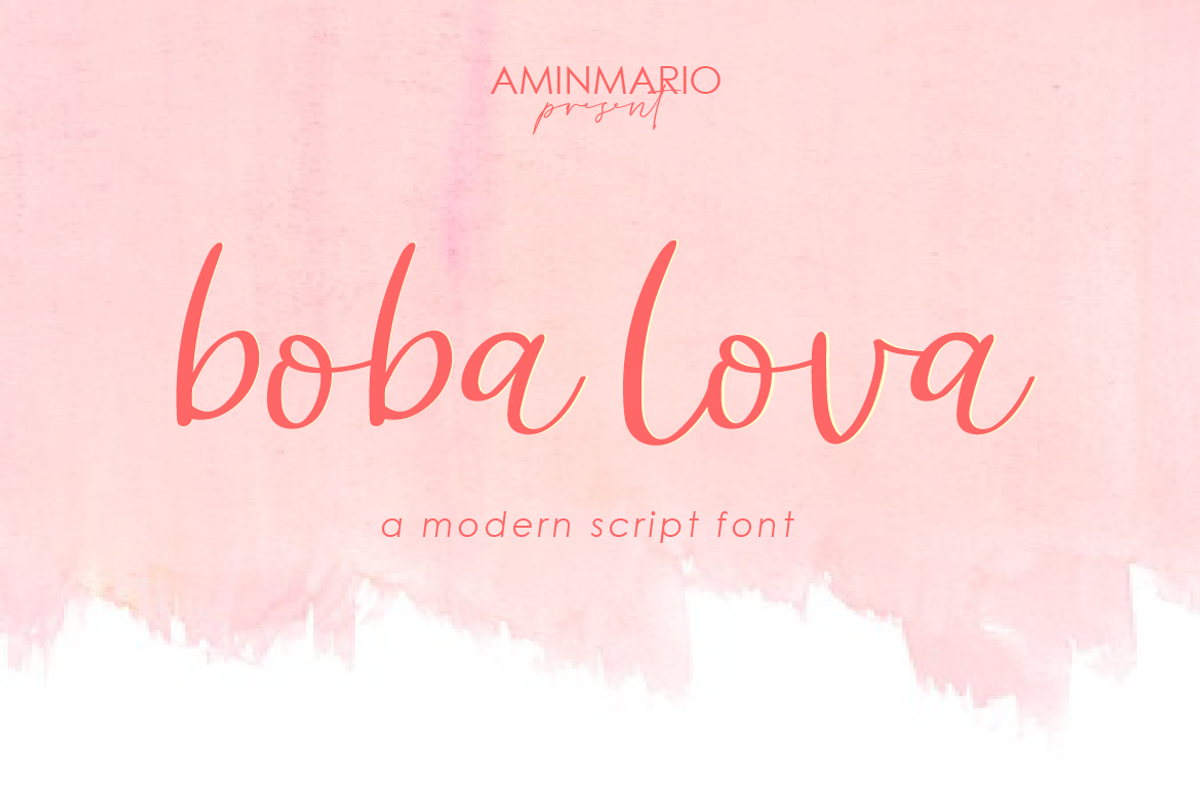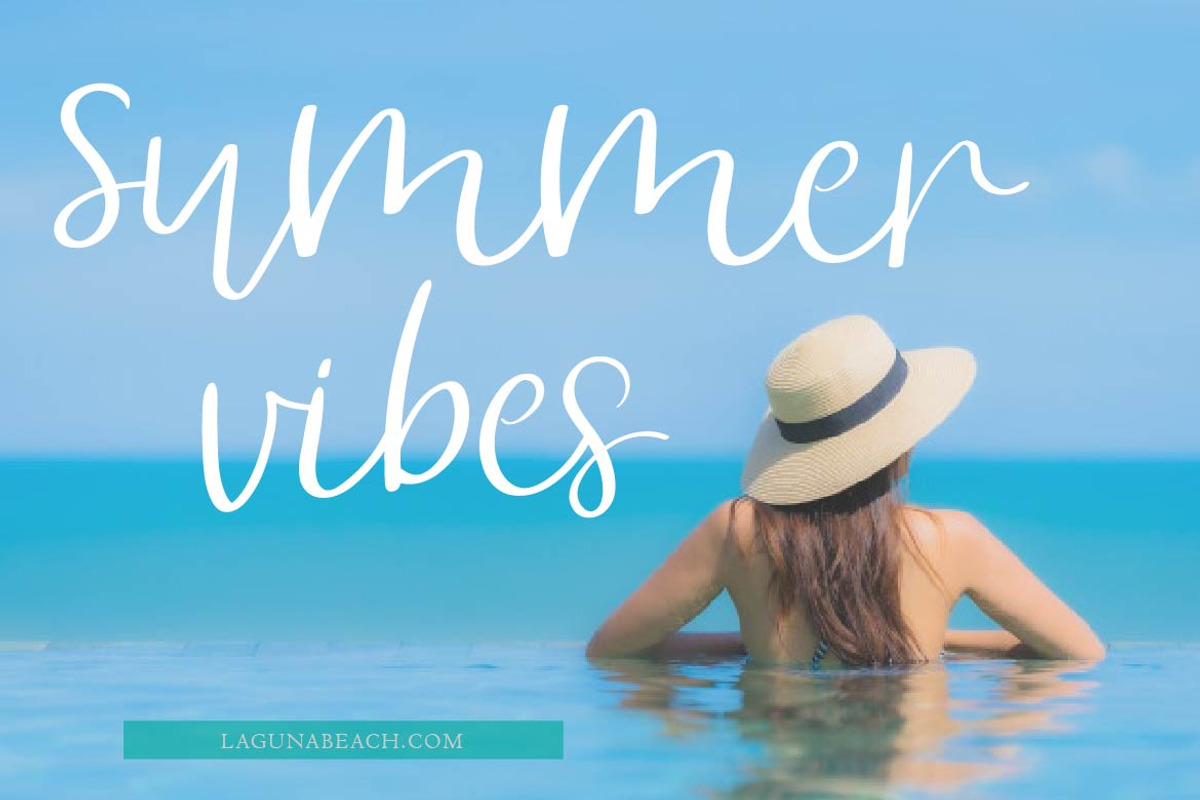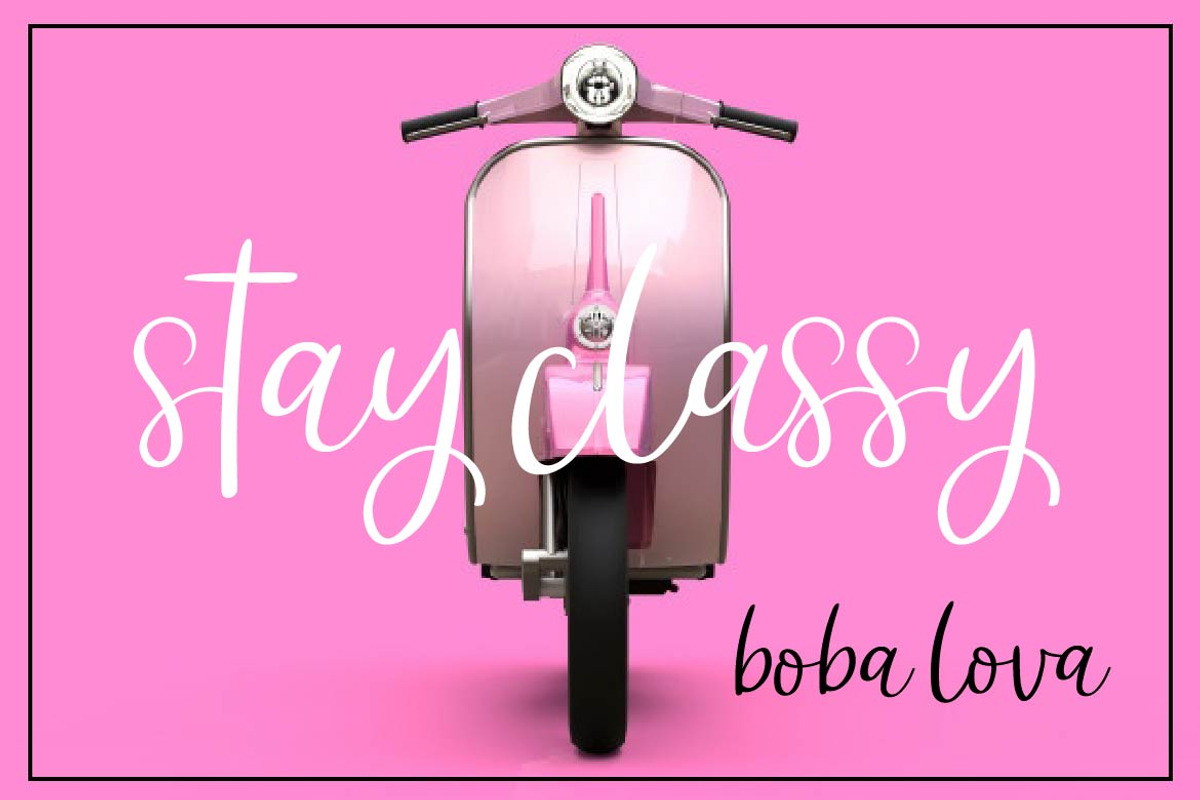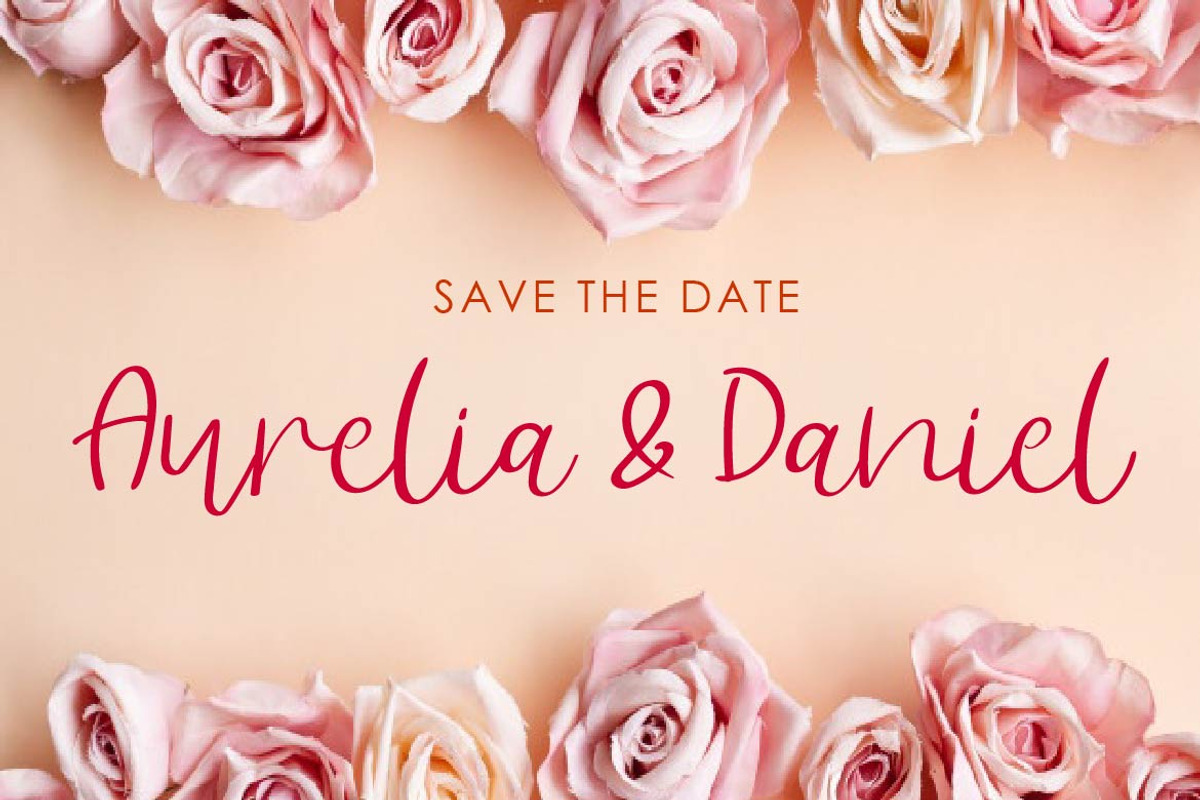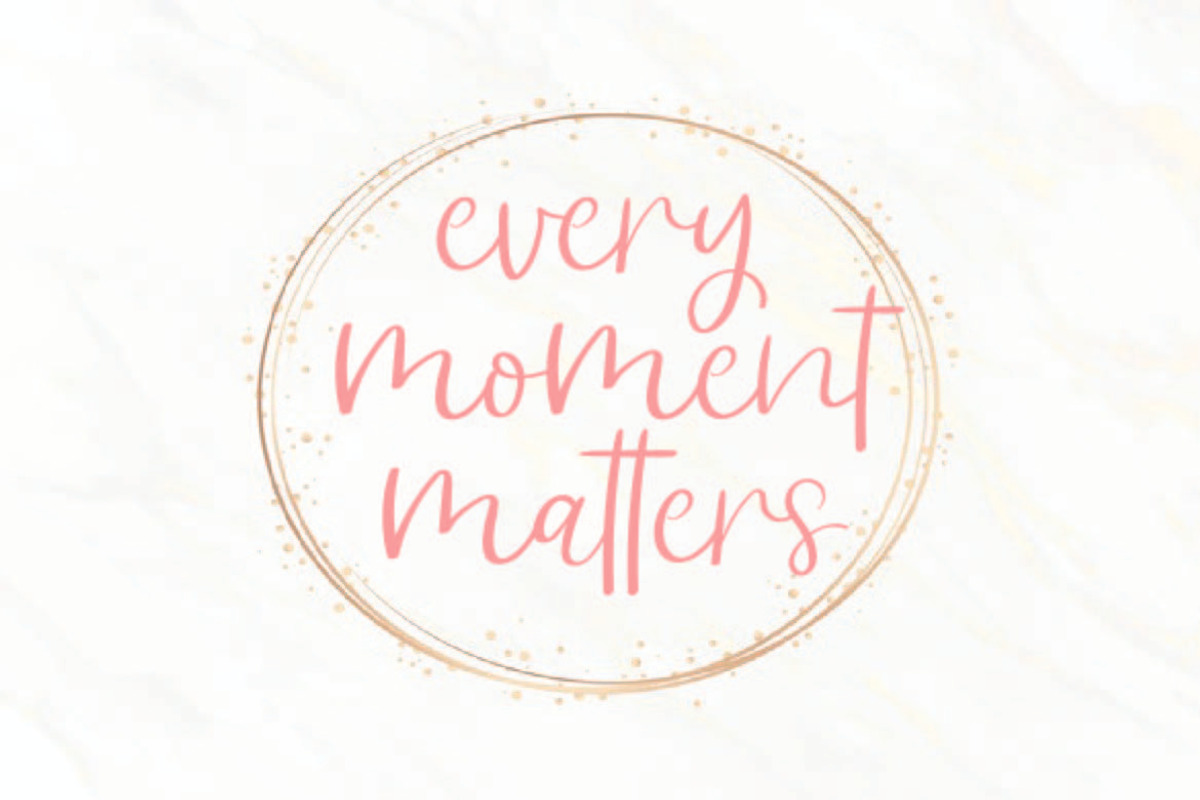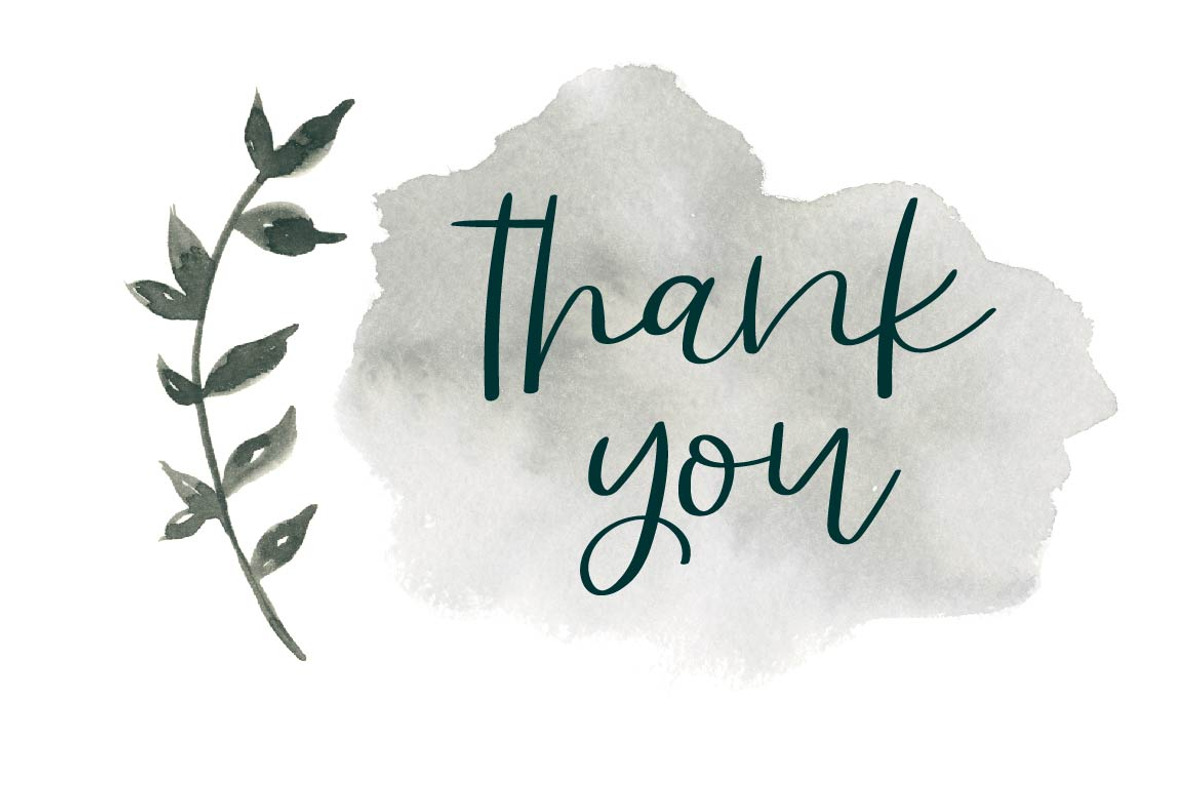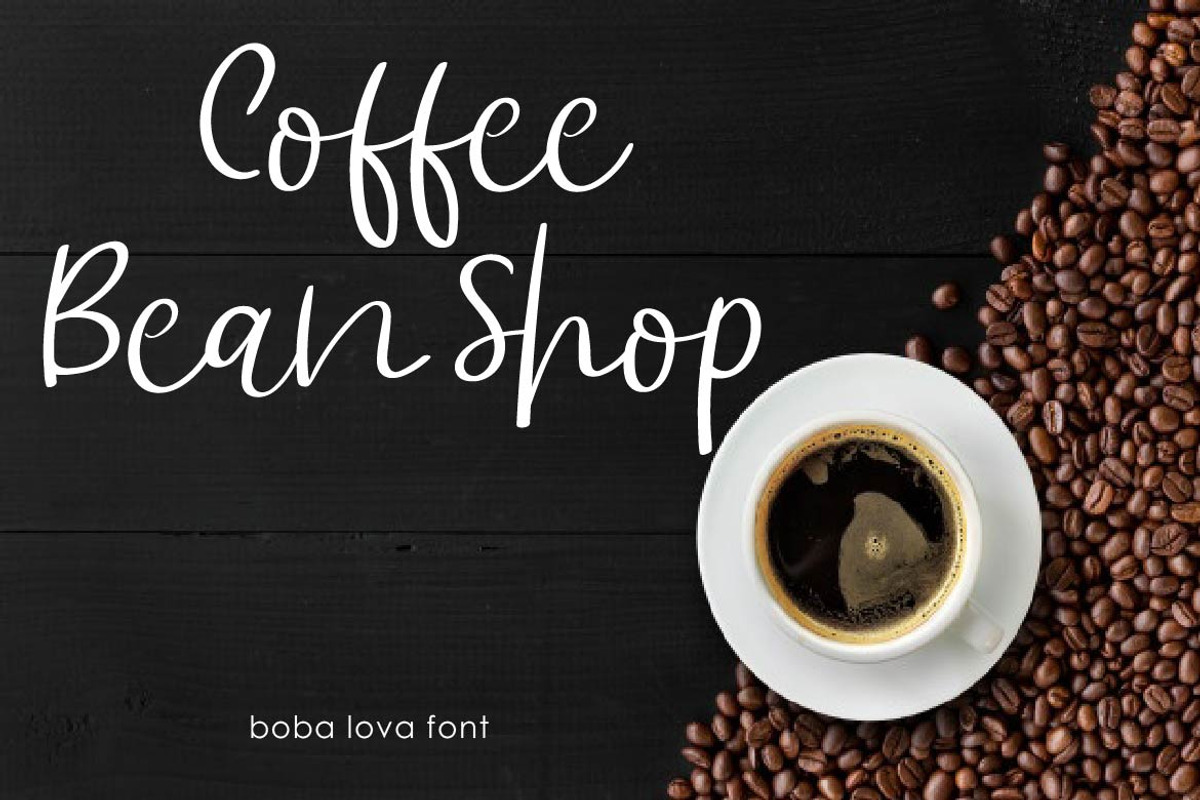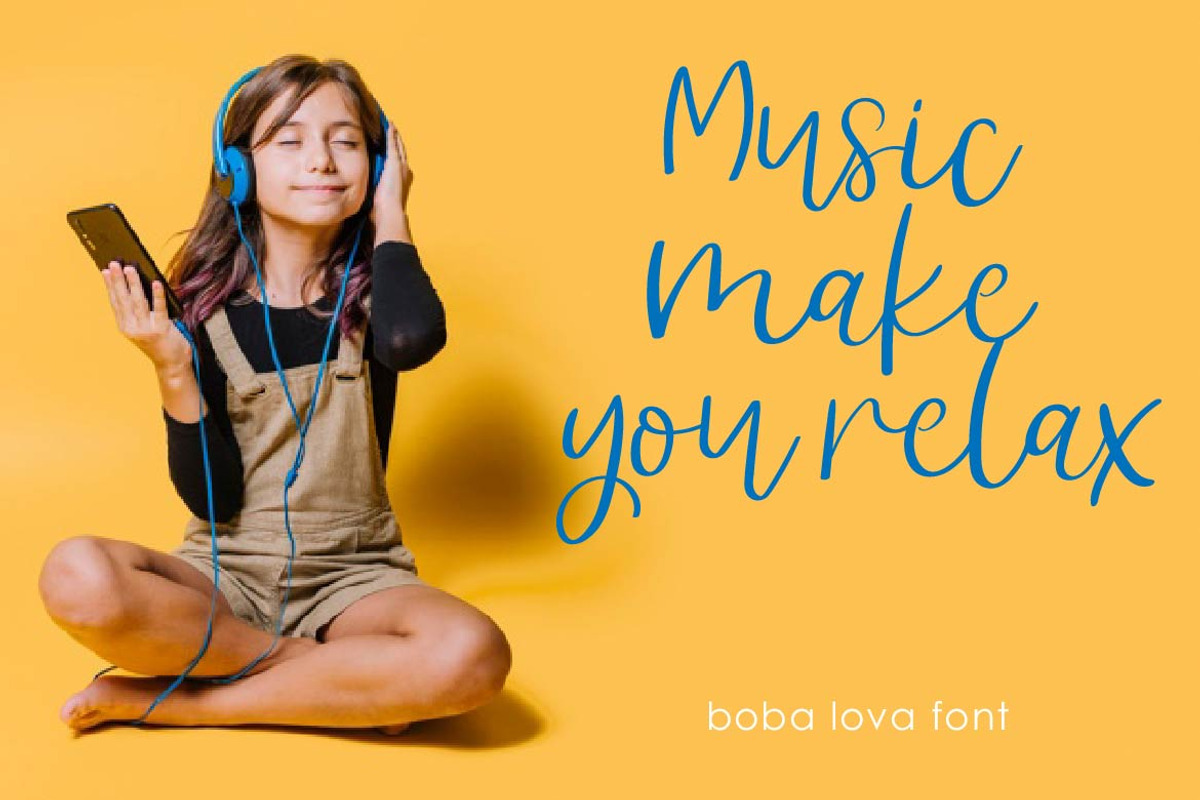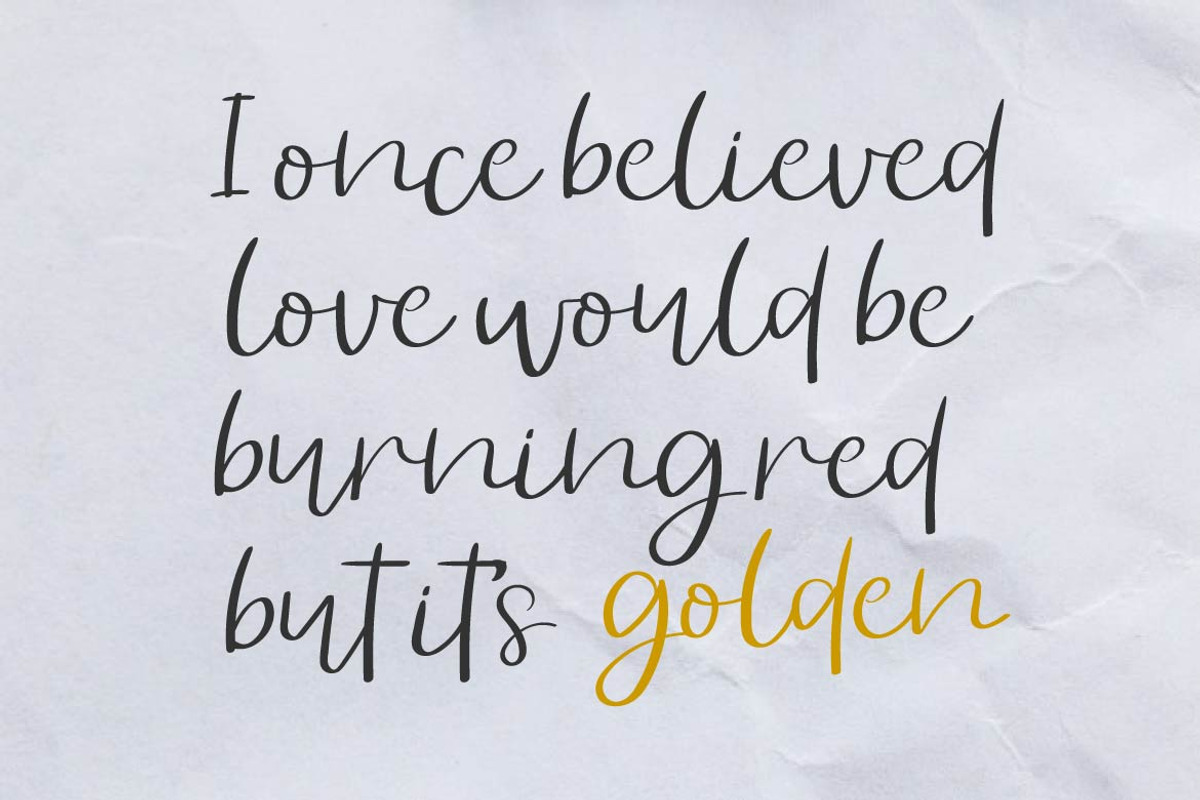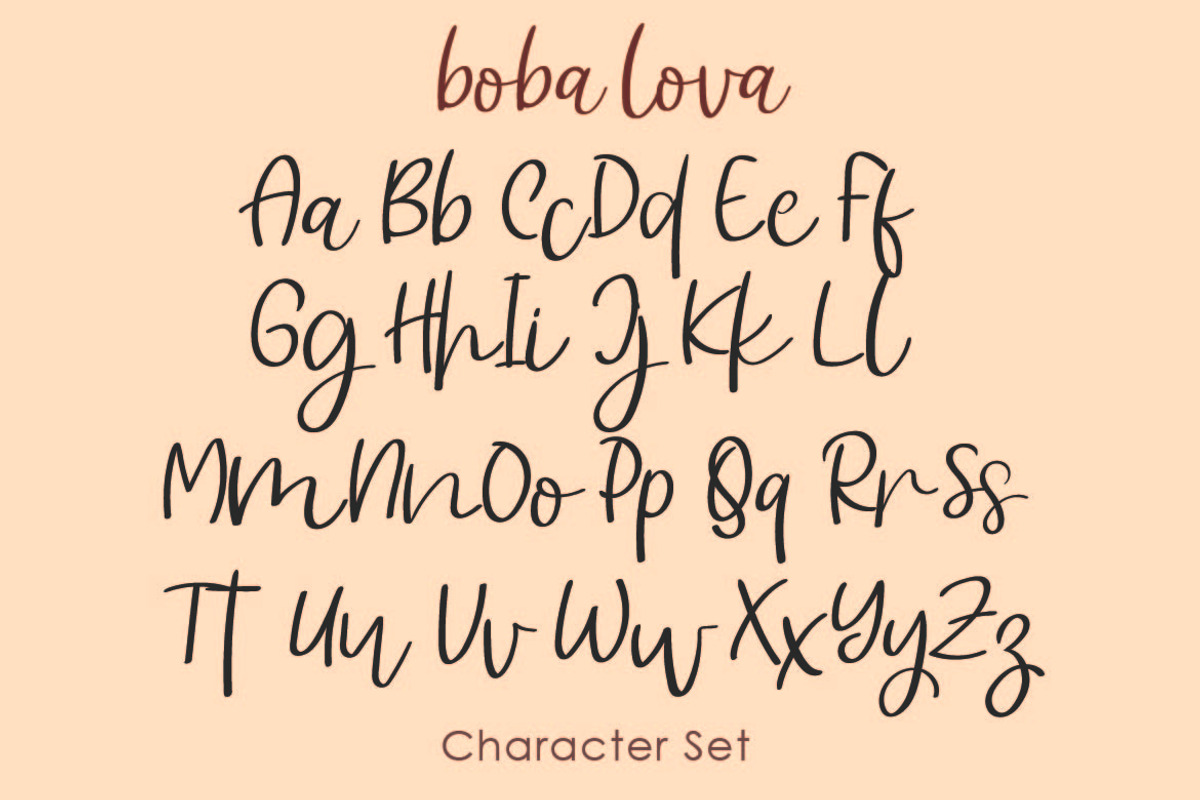
Boba Lova
Boba Lova is a modern script, full of personality and curves. This font was designed to give natural handwritten look in a digital world. Perfect for any awesome project that need hand writing taste. And good for pairing with Sans or Serif
This is suitable for quotes, invitations, stationery, wedding design, logos, watermarks on photography, signatures, branding, advertisement, album covers, business cards, clothing, magazines, posters, and more! Also support multilingual.